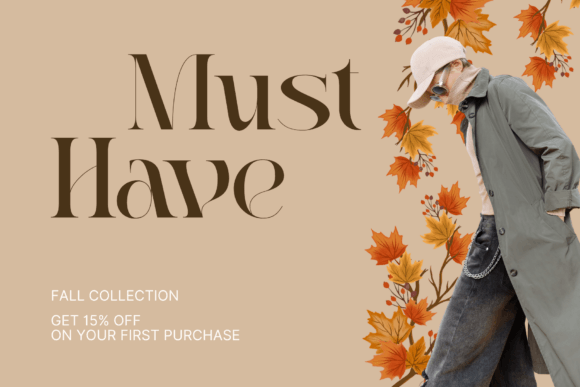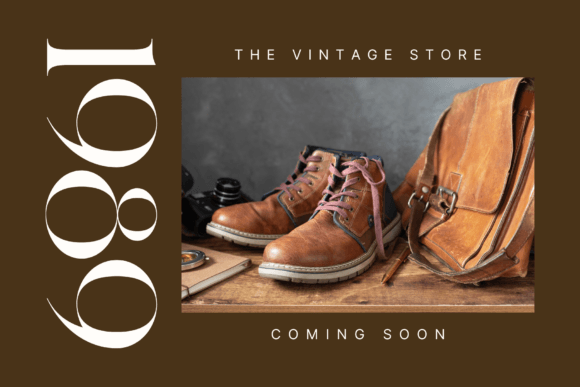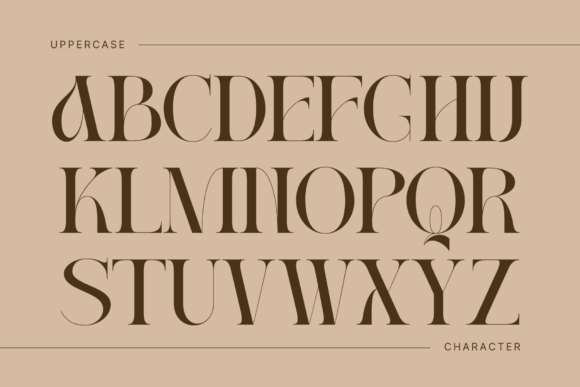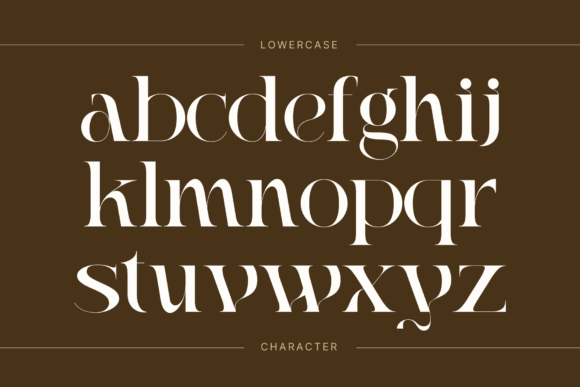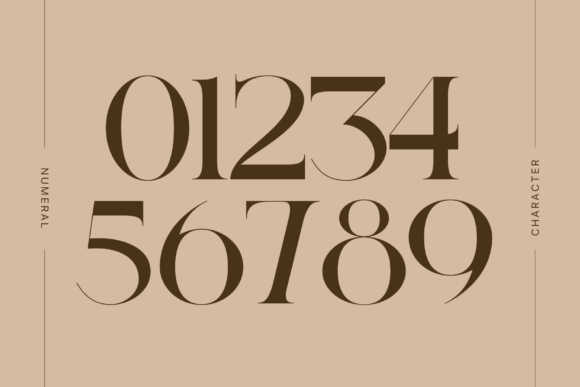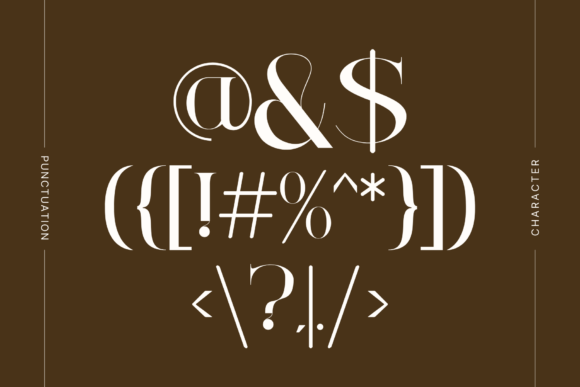
Unveiling Ackor: The Timeless Elegance of a Vintage Serif Display Font
In the world of typography, few fonts manage to strike a balance between classic sophistication and modern dynamism. Ackor, a finesse-driven vintage serif display font, is one such typographical gem that flawlessly mingles traditional grace with audacious flair. With its polished letterforms, exaggerated serifs, and unified strokes, Ackor is the ideal choice for designers and crafters seeking to add an enduring allure or a whisper of nostalgia to their artistic endeavors.
The Essence of Ackor: A Blend of Elegance and Legibility
Ackor’s design draws its elegance from classic typography, boasting a level of sophistication that is hard to match. The font’s exaggerated serifs and unified strokes create a sense of cohesion and harmony, making it perfect for projects that require a high level of legibility. Whether you’re working on a grand event, a logo, or signage, Ackor’s charismatic essence effortlessly grabs attention, ensuring your text mirrors an attractive vibe fused with credible authority.
The Versatility of Ackor: A Font for Diverse Applications
Ackor’s versatility is one of its most compelling features. This iconic font can be used in a wide range of applications, from highlighting grand events to intensifying logos or adding an irresistible charm to your signage. Its commanding aura makes it an ideal choice for designers and crafters seeking to create a lasting impression. Whether you’re working on a luxury brand, a high-end product, or a sophisticated event, Ackor is the perfect font to convey a sense of elegance and refinement.
Designing with Ackor: Tips and Tricks
To get the most out of Ackor, it’s essential to understand its design characteristics and how to use them effectively. Here are a few tips and tricks to help you get started:
• Use Ackor as a display font: Ackor is designed to be used as a display font, making it perfect for headlines, titles, and other prominent text elements.
• Experiment with font sizes: Ackor’s elegant design works well at a variety of font sizes, from large display sizes to smaller body text.
• Pair Ackor with complementary fonts: Ackor pairs well with a range of fonts, from modern sans-serifs to traditional serif fonts.
The Benefits of Using Ackor
Ackor offers a range of benefits for designers and crafters, including:
• Timeless elegance: Ackor’s classic design ensures it will remain timeless and relevant for years to come.
• Versatility: Ackor can be used in a wide range of applications, from luxury brands to high-end products.
• Legibility: Ackor’s unified strokes and exaggerated serifs make it highly legible, even at smaller font sizes.
Ackor is a true typographical gem that offers a unique blend of classic elegance and modern dynamism. Its versatility, legibility, and commanding aura make it an ideal choice for designers and crafters seeking to create a lasting impression. Whether you’re working on a grand event, a logo, or signage, Ackor is the perfect font to convey a sense of sophistication and refinement. With its timeless design and wide range of applications, Ackor is sure to become a staple in any designer’s font library.